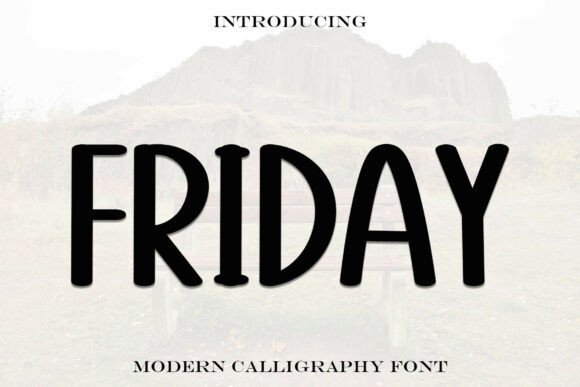
It’s Friday evening, and you’re sipping on your favorite coffee, scrolling through your design inspiration board, and suddenly, a beautiful font catches your eye. The curves, the elegance, and the playfulness all blend together to create a sense of magic. You can’t help but imagine how this font would elevate your next design project.
Meet the Friday Font, a sweet display font that’s sure to bring a touch of joy and romance to your designs. Whether you’re creating a branding logo, wedding invitation, or fashion lookbook, this font is the perfect addition to make your project stand out. As a designer, you know how valuable it is to have the right font at your disposal, and Friday Font is one of those special finds that will make your designs look fancy and elegant, yet still casual.
Key Features of Friday Font
- Font Family: Friday Font is a sans-serif font family designed for modern and clean typography.
- Character Set: Supports a wide range of languages, including Latin, Cyrillic, and Greek scripts, making it a versatile font for global applications.
- Unique Characteristics: Friday Font features a unique blend of modernity and friendliness, making it ideal for use in logos, branding, and digital interfaces.
Friday Font Review
Overall, I’d say the Friday Font is a solid addition to any designer’s toolbox. ✨ The font’s clean, modern aesthetic makes it perfect for digital projects, especially those with a touch of playfulness. I love how it looks on screens, and it’s great for short-form content, like social media posts or captions.
One of the things that really stands out about the Friday Font is its versatility. ✨ You can use it for headings, body text, or even as a display font for titles and quotes. It’s also surprisingly legible at various font sizes, which is a must for any font.
However, there are some limitations to consider. ⚠️ The Friday Font is a sans-serif font, which can make it feel a bit flat or uninviting in certain situations. It’s also not the best choice for long blocks of text, as it can be tiring to read in large quantities.
Here are some specific things to keep in mind:
- Not ideal for long-form content
- Can feel flat or uninviting in certain situations
- Not suitable for all types of projects (e.g. formal or serious content)
Overall, I’d give the Friday Font 3.5 out of 5 stars. It’s a great choice for the right projects, but it’s not a one-size-fits-all solution. With some careful consideration and planning, though, it can be a fantastic addition to your design toolkit.
Some tips for getting the most out of “Friday Font” include:
- Using it for bold, eye-catching headlines.
- Pairing it with a clean, sans-serif font for a modern look.
- Experimenting with different font sizes and colors to create visual interest.
Common use cases for “Friday Font” include:
- Social media posts and ads.
- Presentations and reports.
- Marketing materials and flyers.